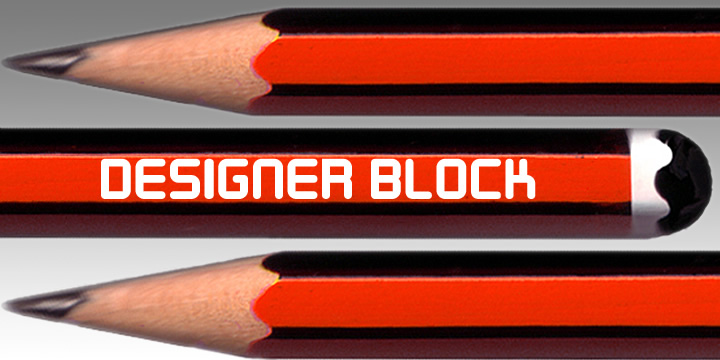
This architectural typeface excels in various structured applications including design studio branding, creative agency logos, architectural firm identities, building block toys, modular furniture companies, grid-based layouts, minimalist poster designs, and contemporary gallery exhibitions. The Designer Block Font constructs visual impact through its geometrically perfect letterforms built from fundamental shapes like a typographic building system.
What makes this font truly exciting is its ingenious modular construction that transforms simple geometric blocks into sophisticated characters, proving that creative constraints breed innovative solutions. The systematically designed letters feature consistent block modules, perfect right angles, and grid-aligned proportions that make every word feel precisely engineered yet playfully creative. Its distinctive personality combines Bauhaus rationality with contemporary design thinking, creating typography that celebrates the beauty of systematic creativity.
The Designer Block Font family includes construction-ready variations: Light, Regular, Bold, Extra Bold, and Outline styles, plus alternate block configurations. Each family member maintains the signature modular character while providing flexibility for creating designs that range from minimally constructed to boldly architectural.